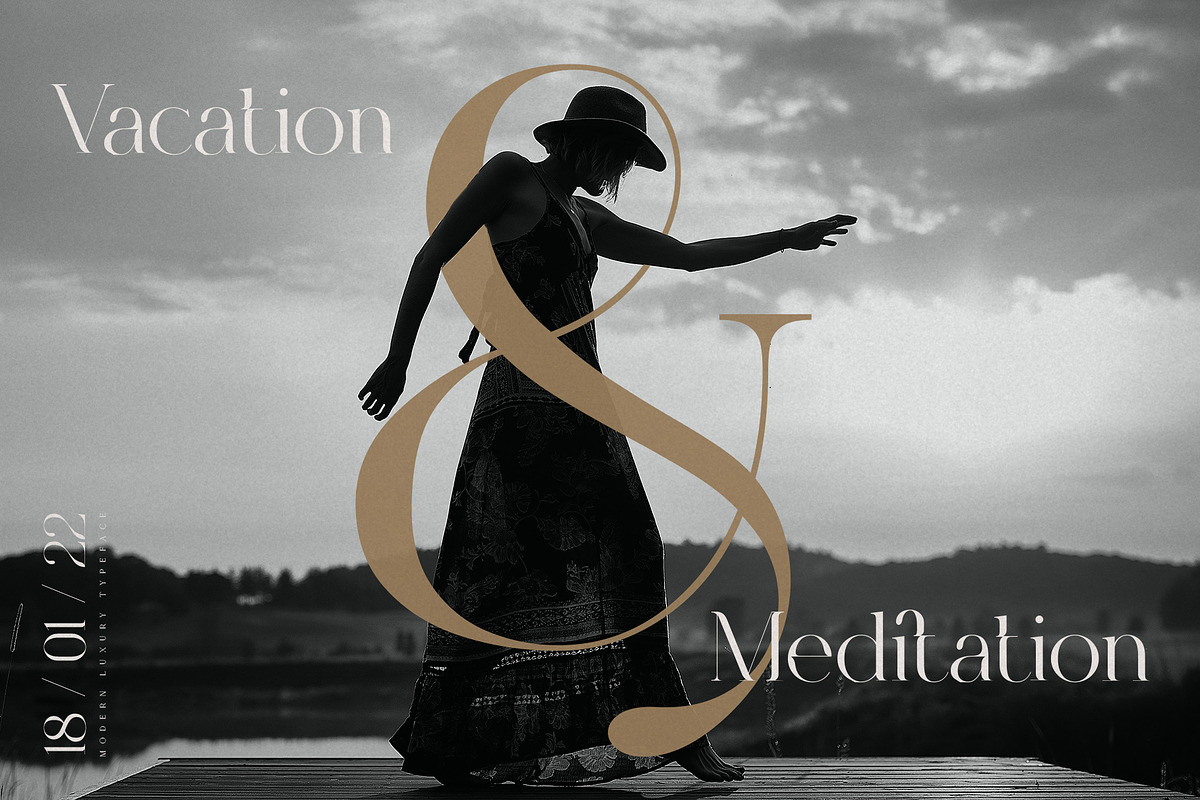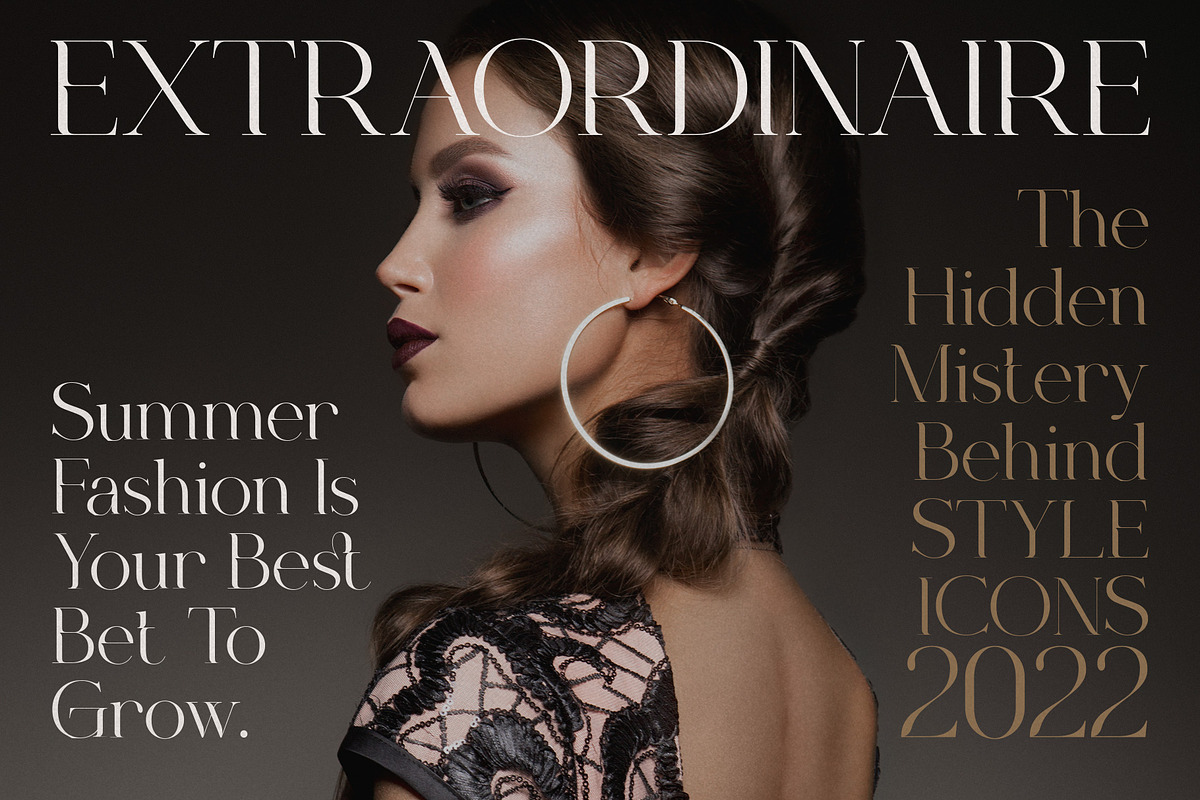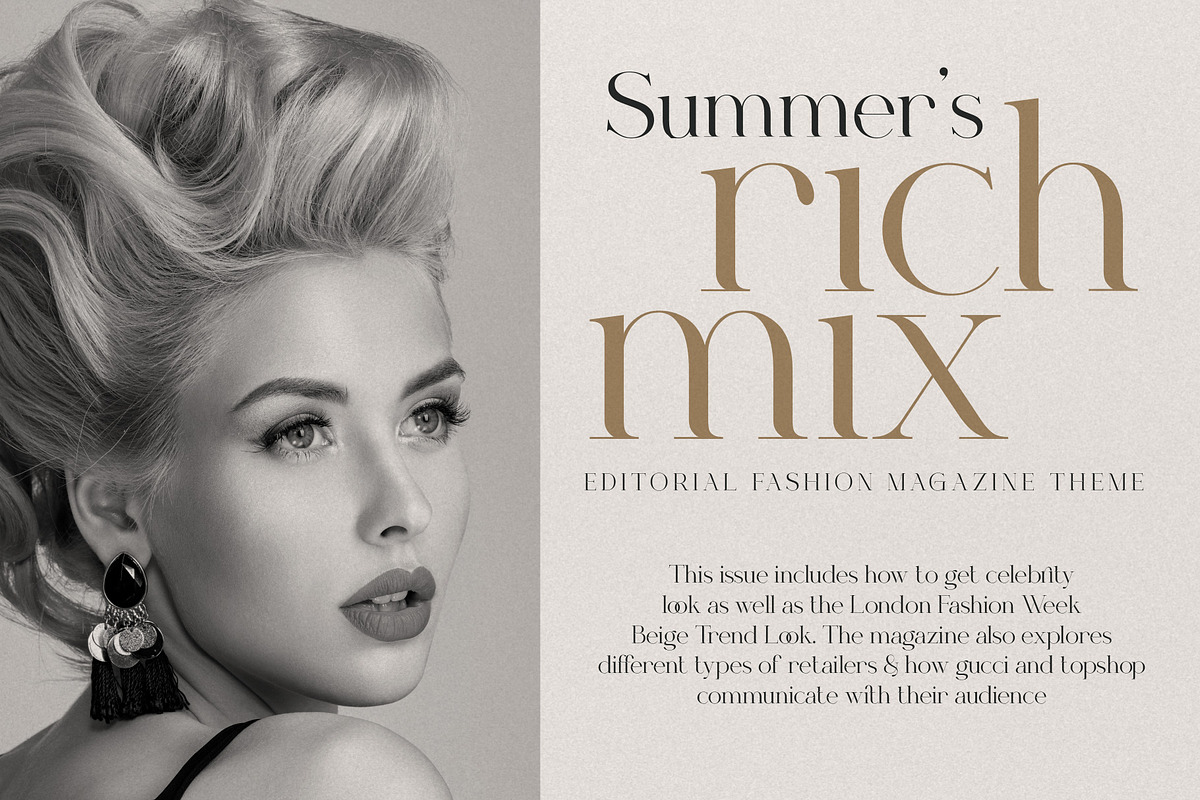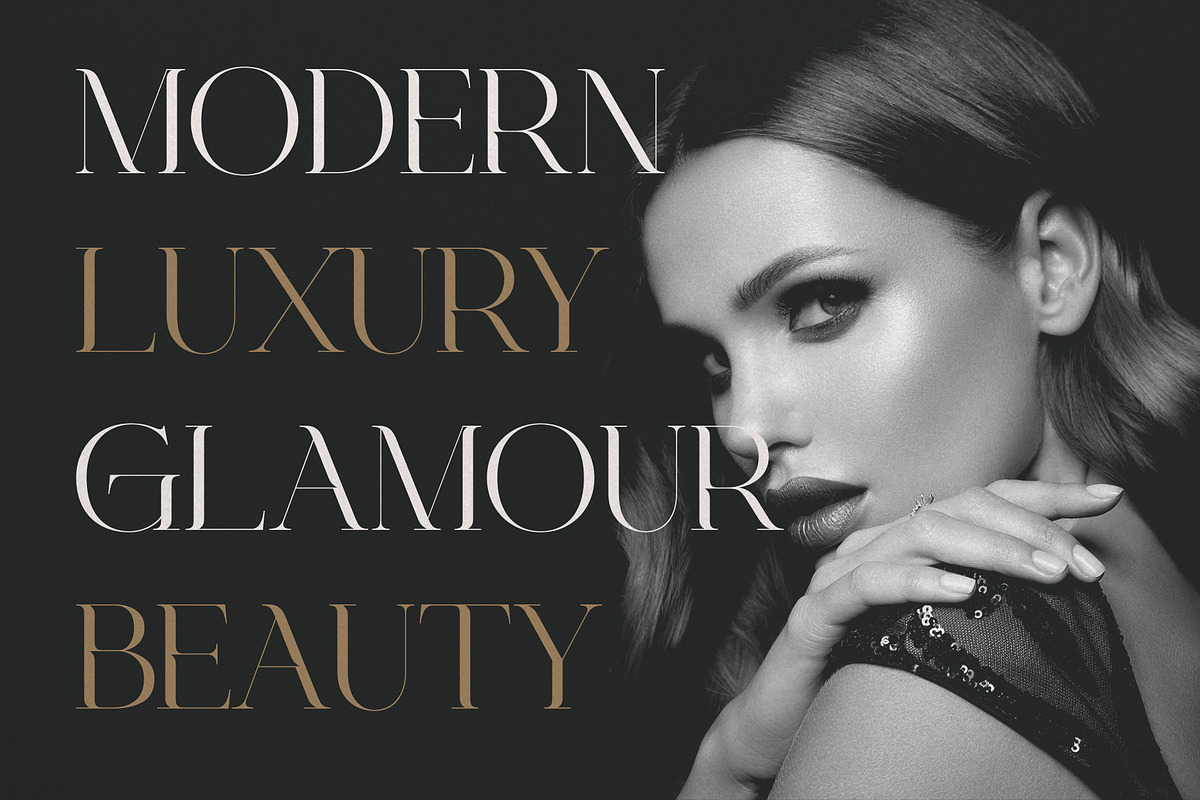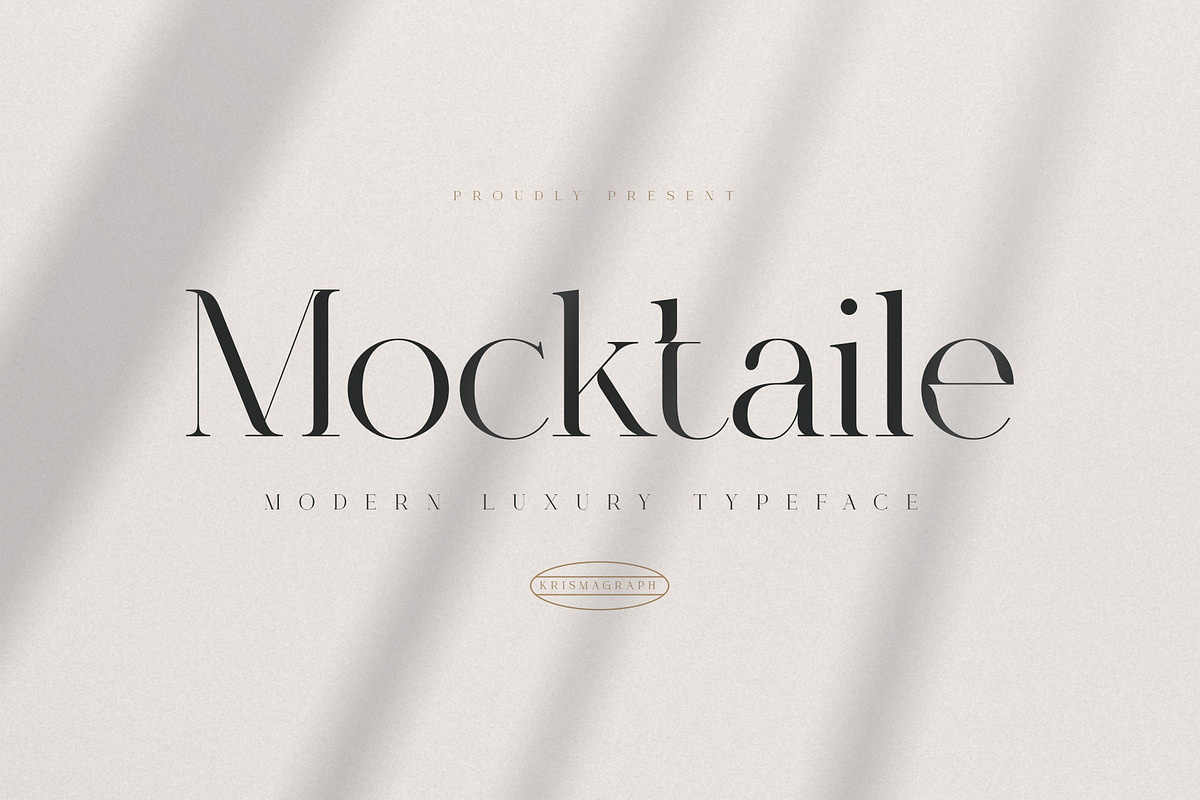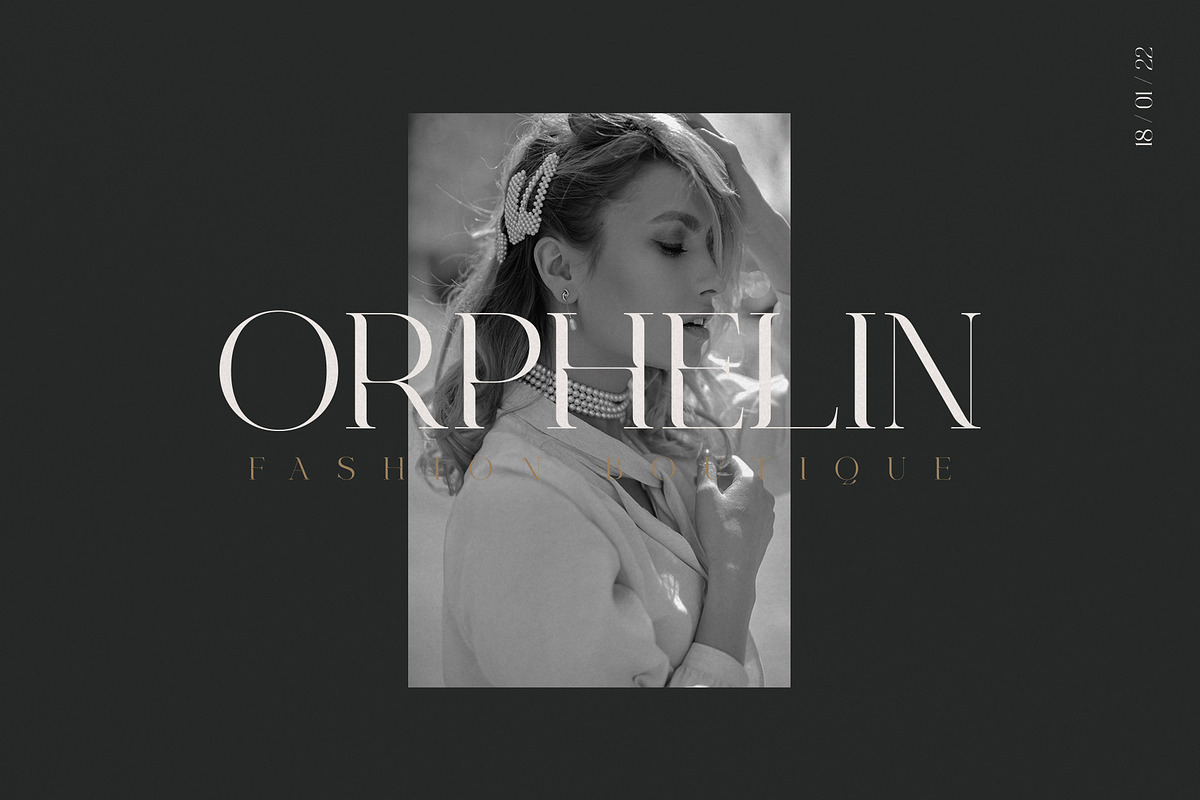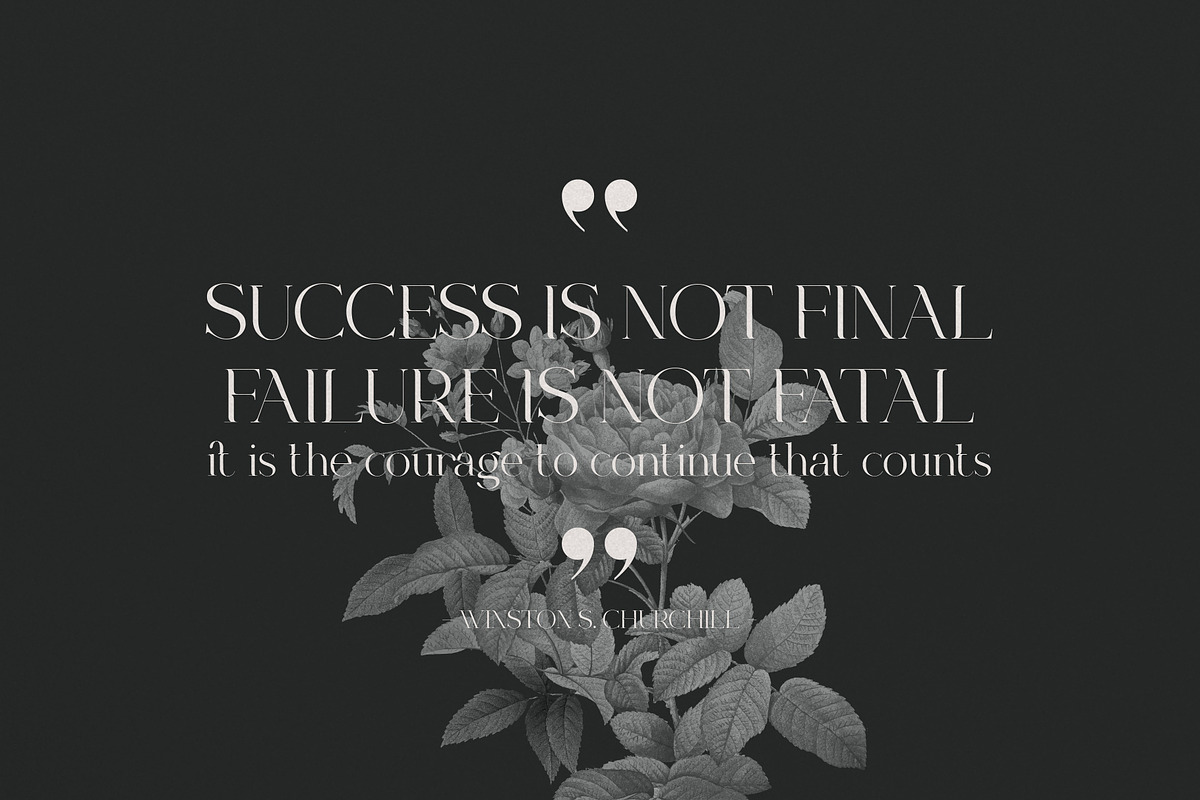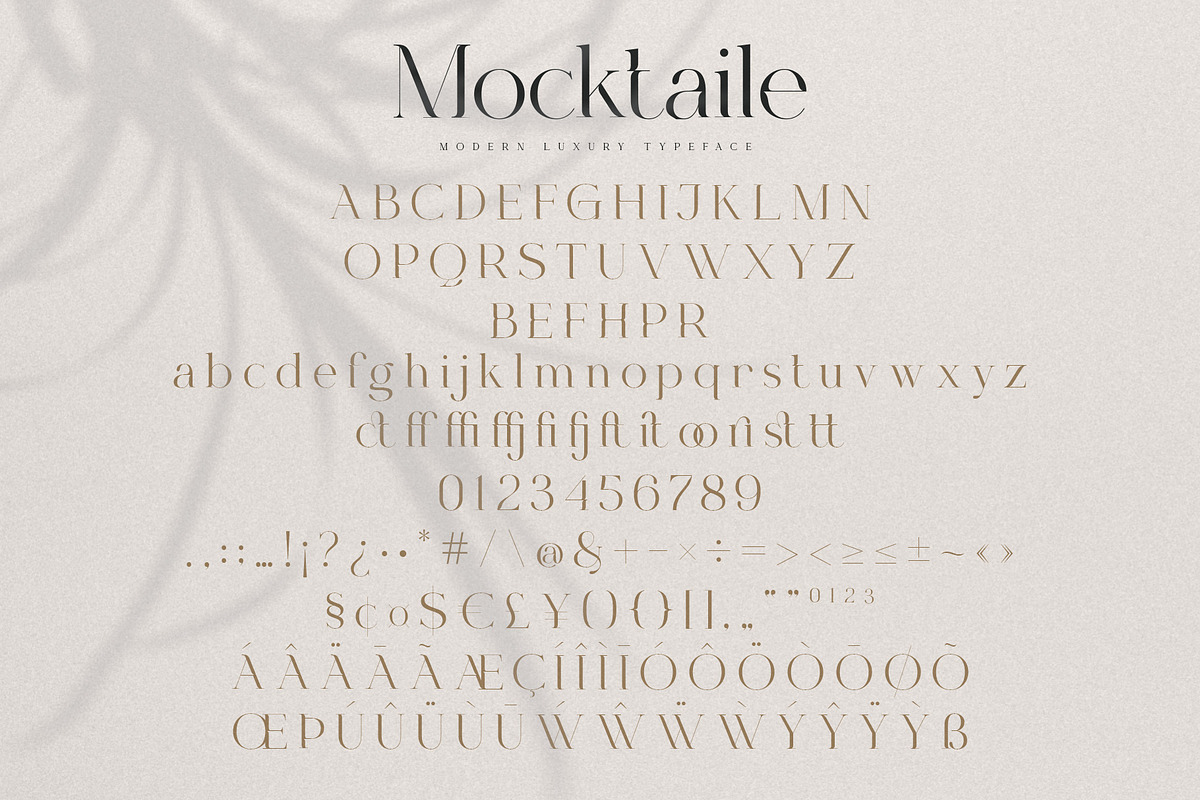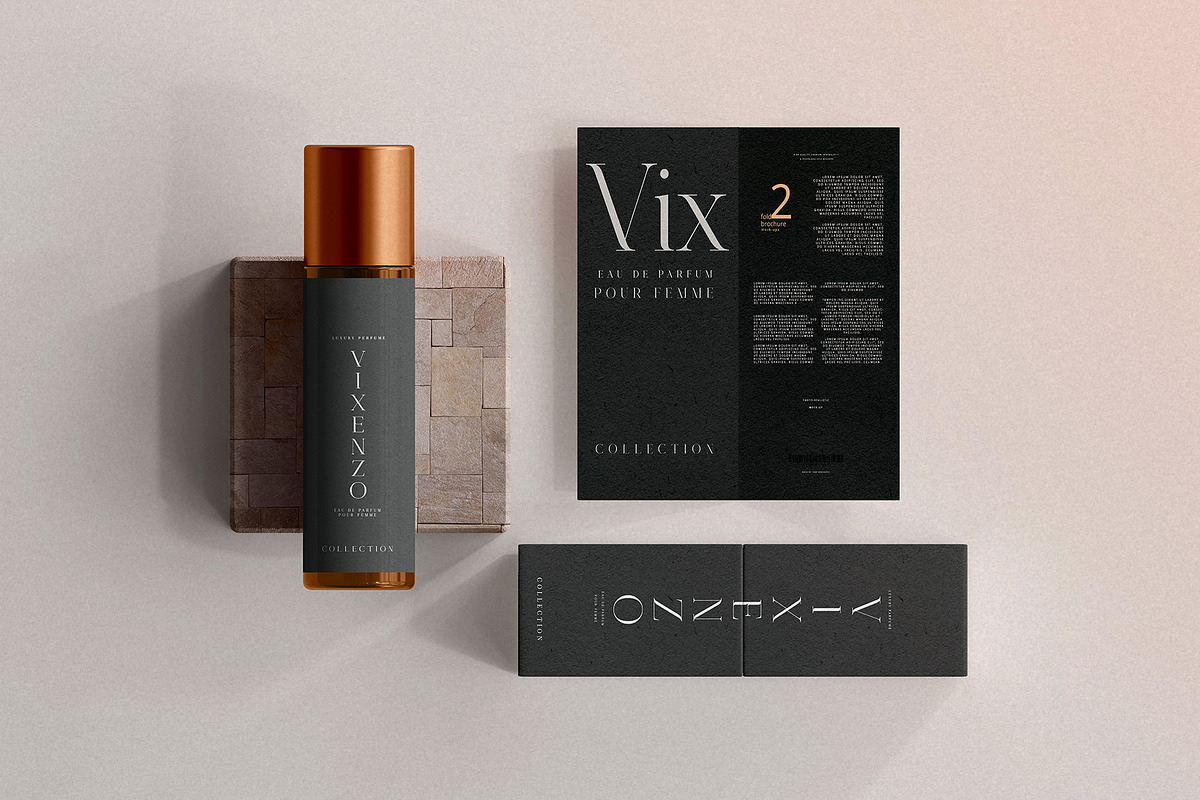
Mocktaile | Modern Luxury Typeface
Mocktaile Typeface is a modern & luxury serif . It's soft curves mixed with high contrast glyphs lend it self to both feminine qualities. Great in layout design for quotes or body copy, and will be unique to the use of the fashion typography, logo design. And also multilingual support.